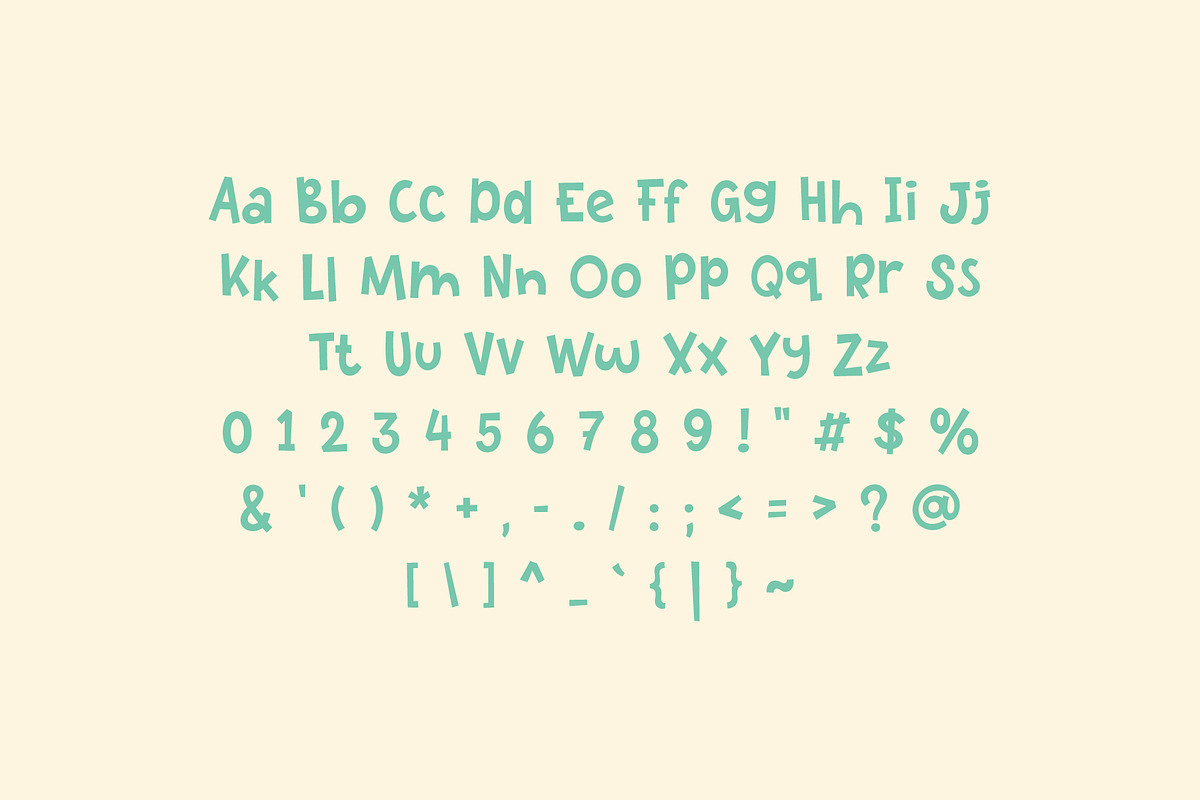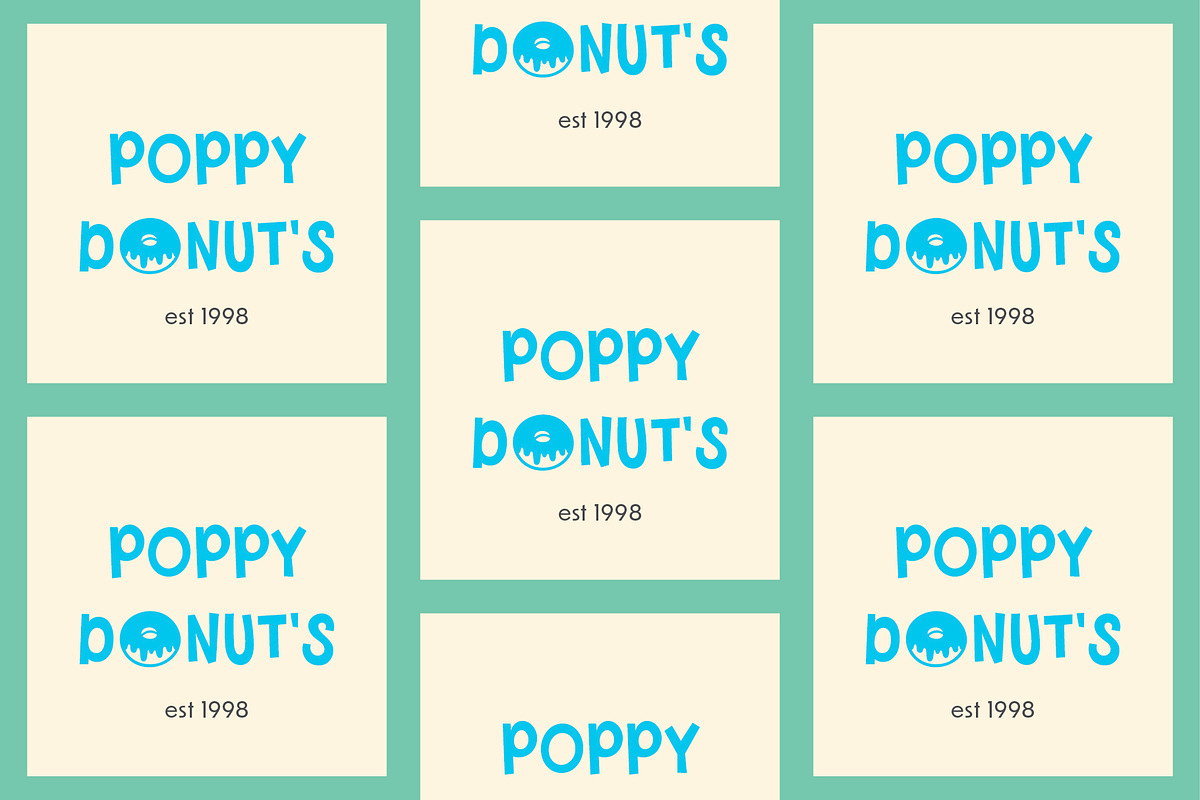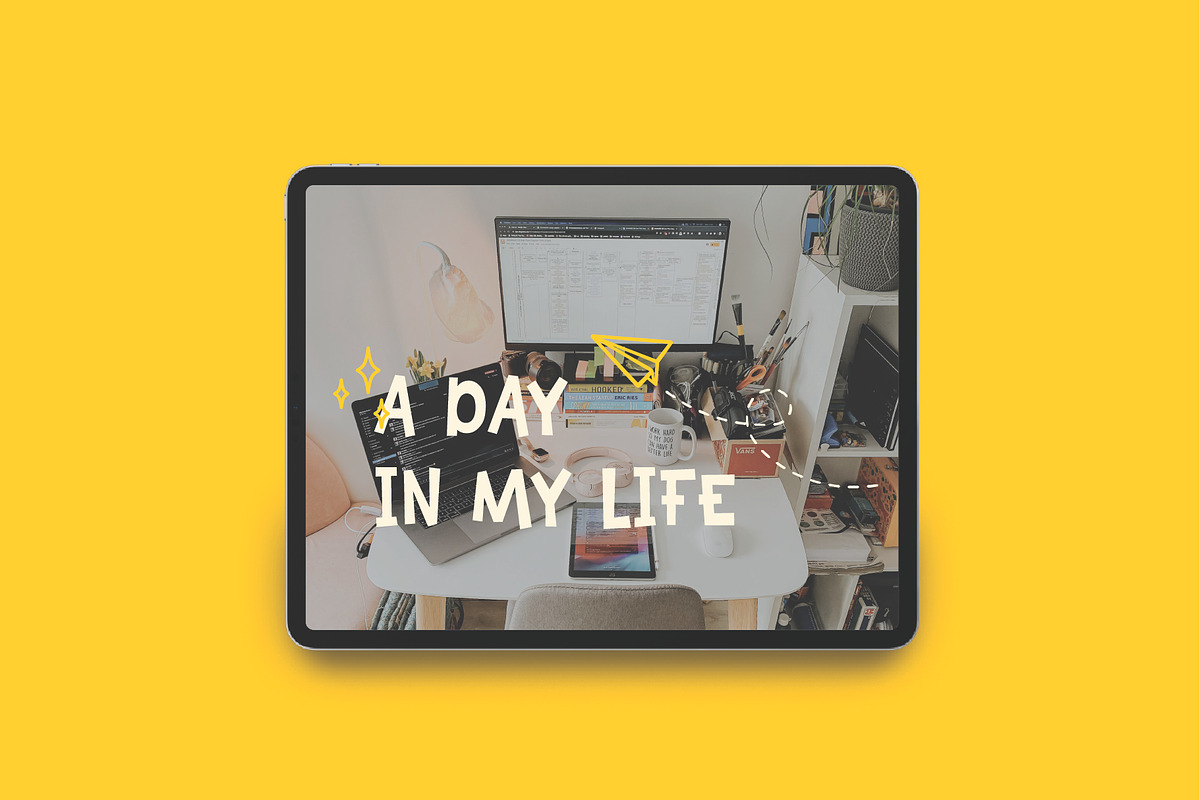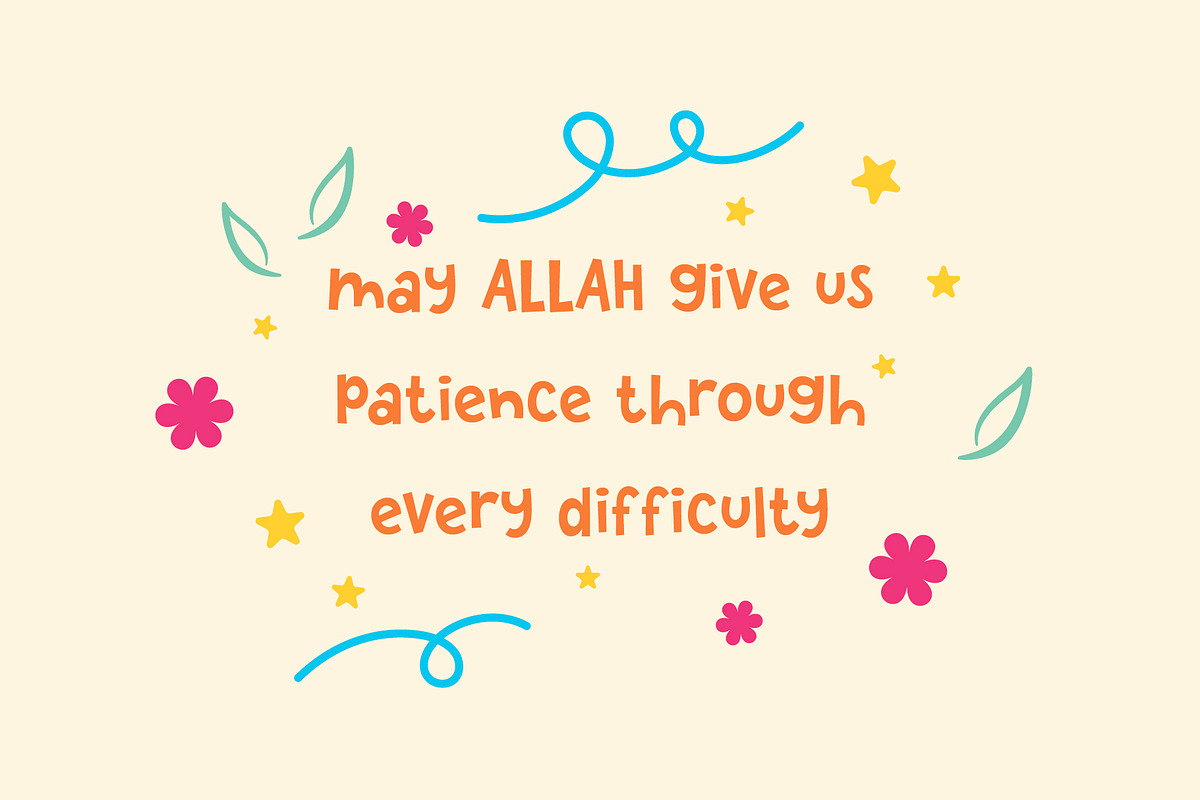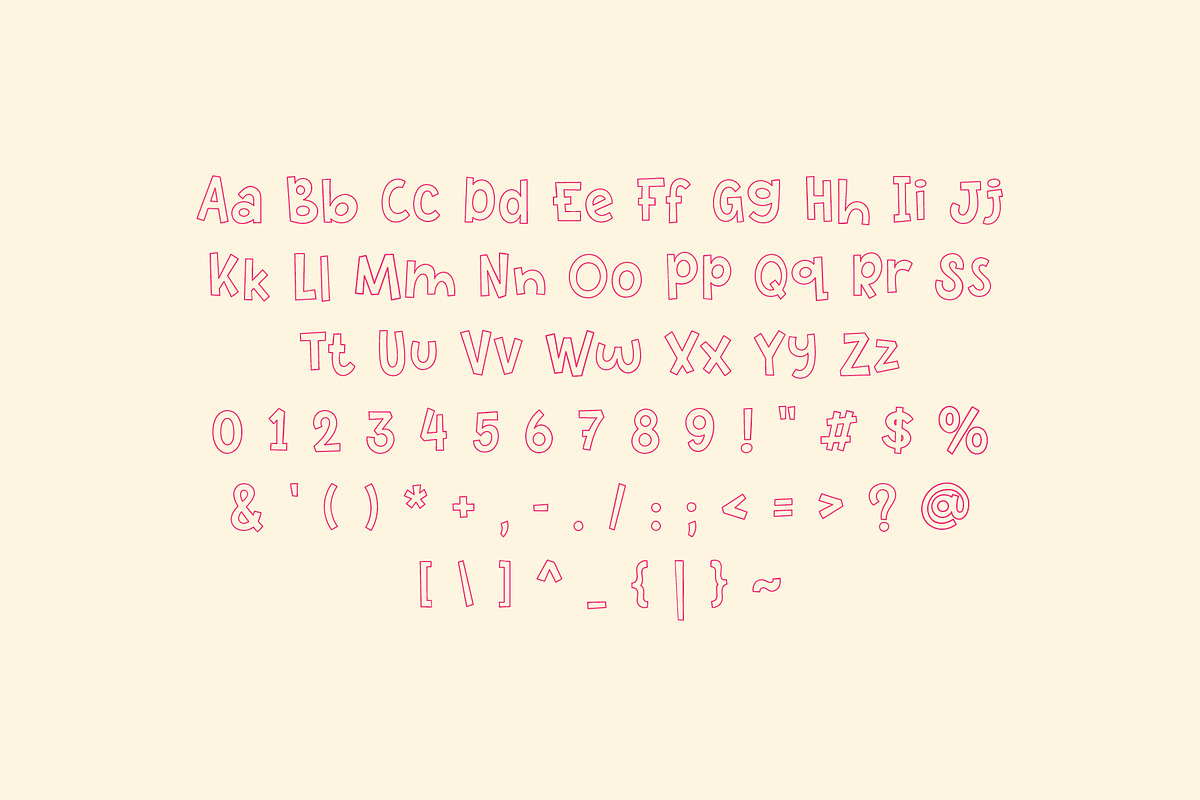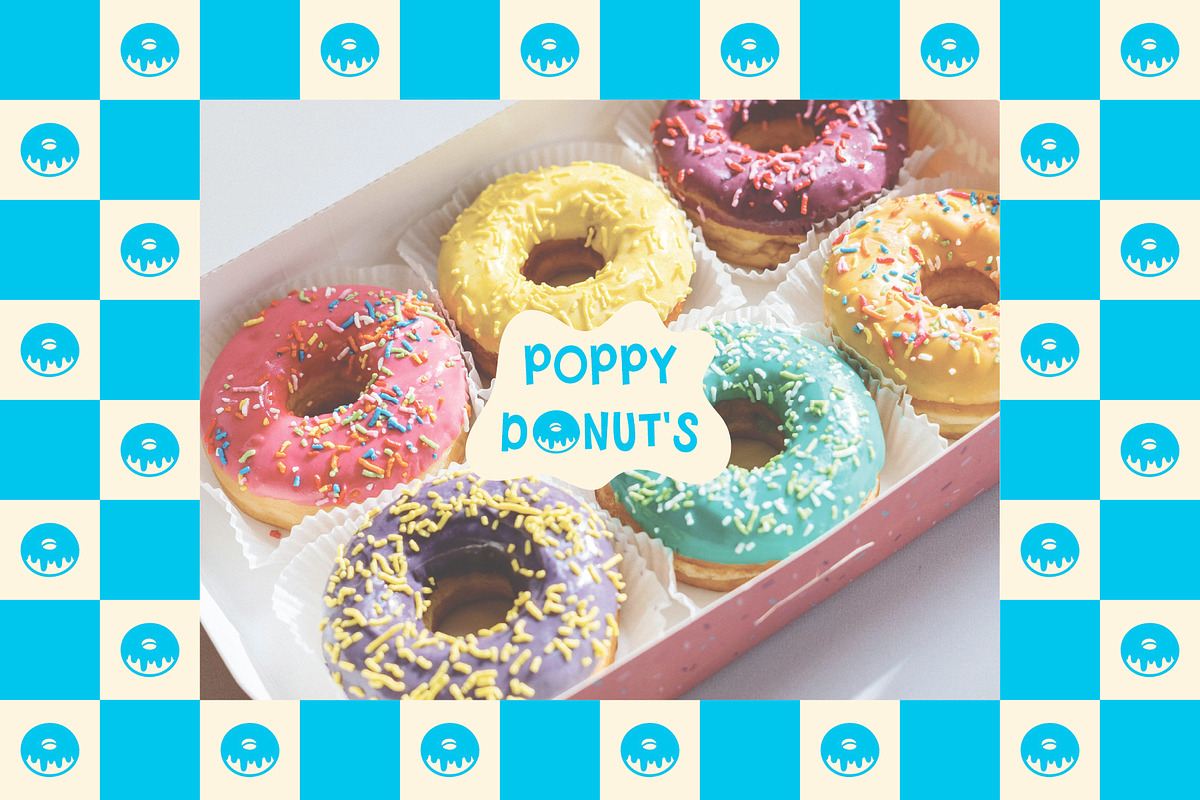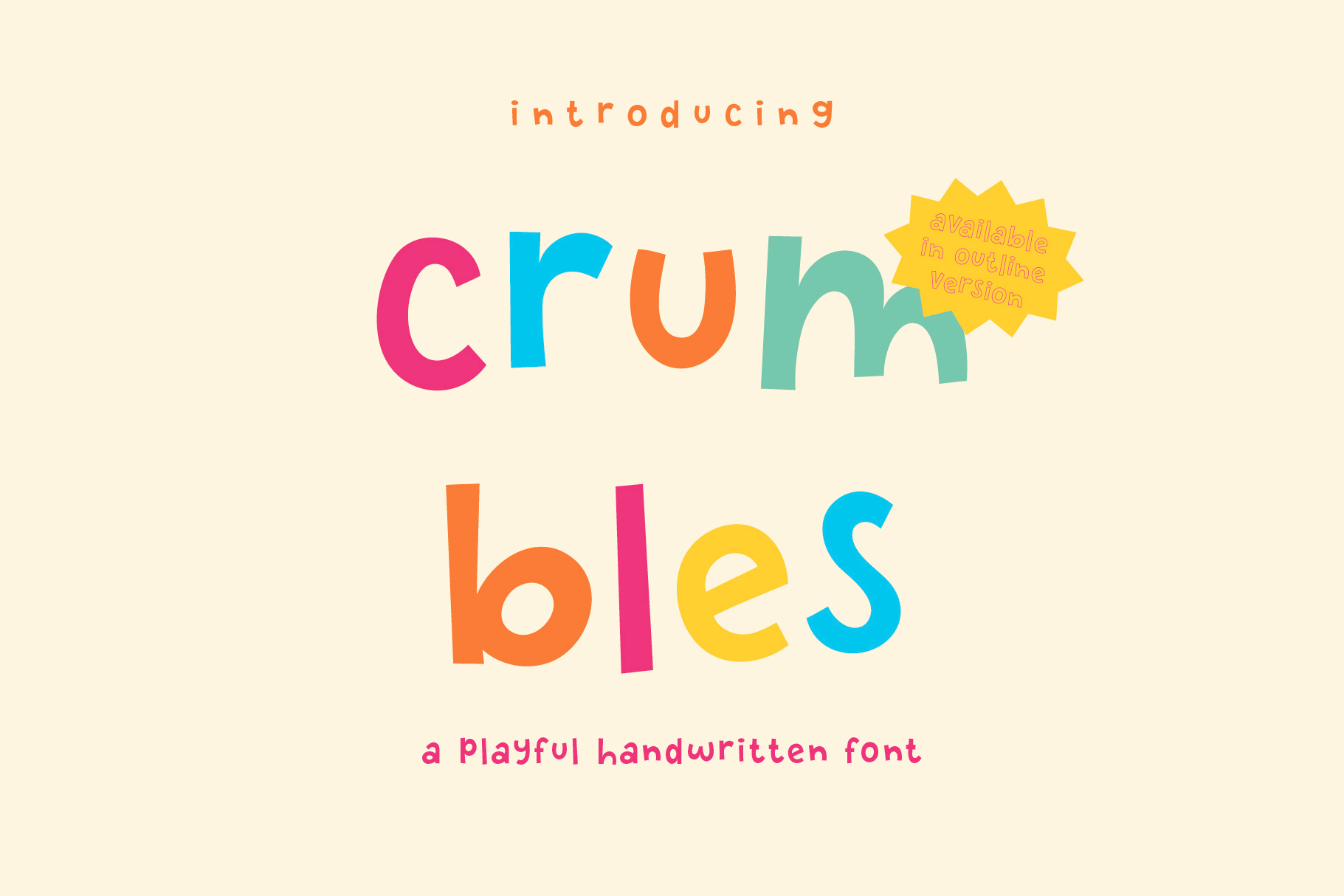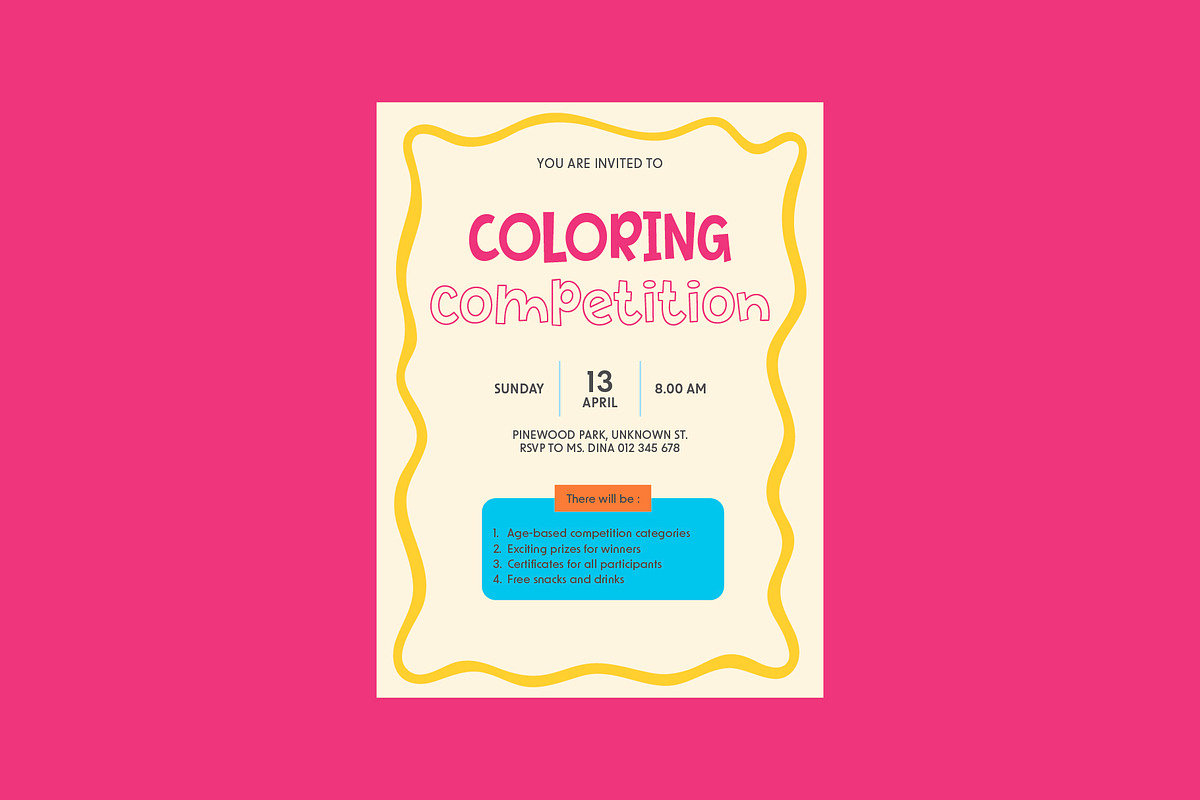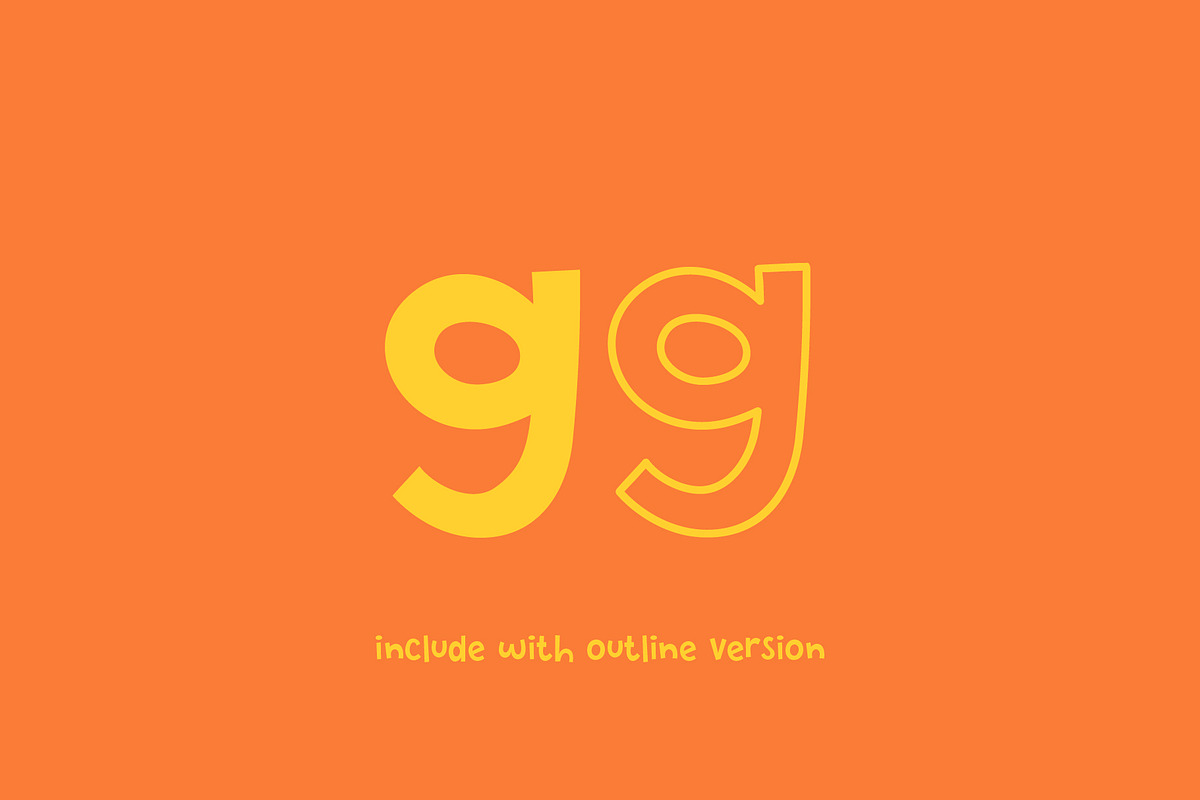
PGR Crumbles - Playful Font
PGR Crumbles is a versatile font that can be used in a wide range of design projects. Additionally, its playful feel makes it an excellent choice for designs aimed at children, such as children’s magazine, greeting card, educational materials, clothing, and toy packaging.
Key Features: – Hand-drawn, playful font with a chunky aesthetic – Perfect for branding, logos, posters, and more – Comprehensive character set, including uppercase and lowercase letters, numbers, and punctuation marks – Includes TTF, OTF, and WOFF file formats, as well as the outline version of the font